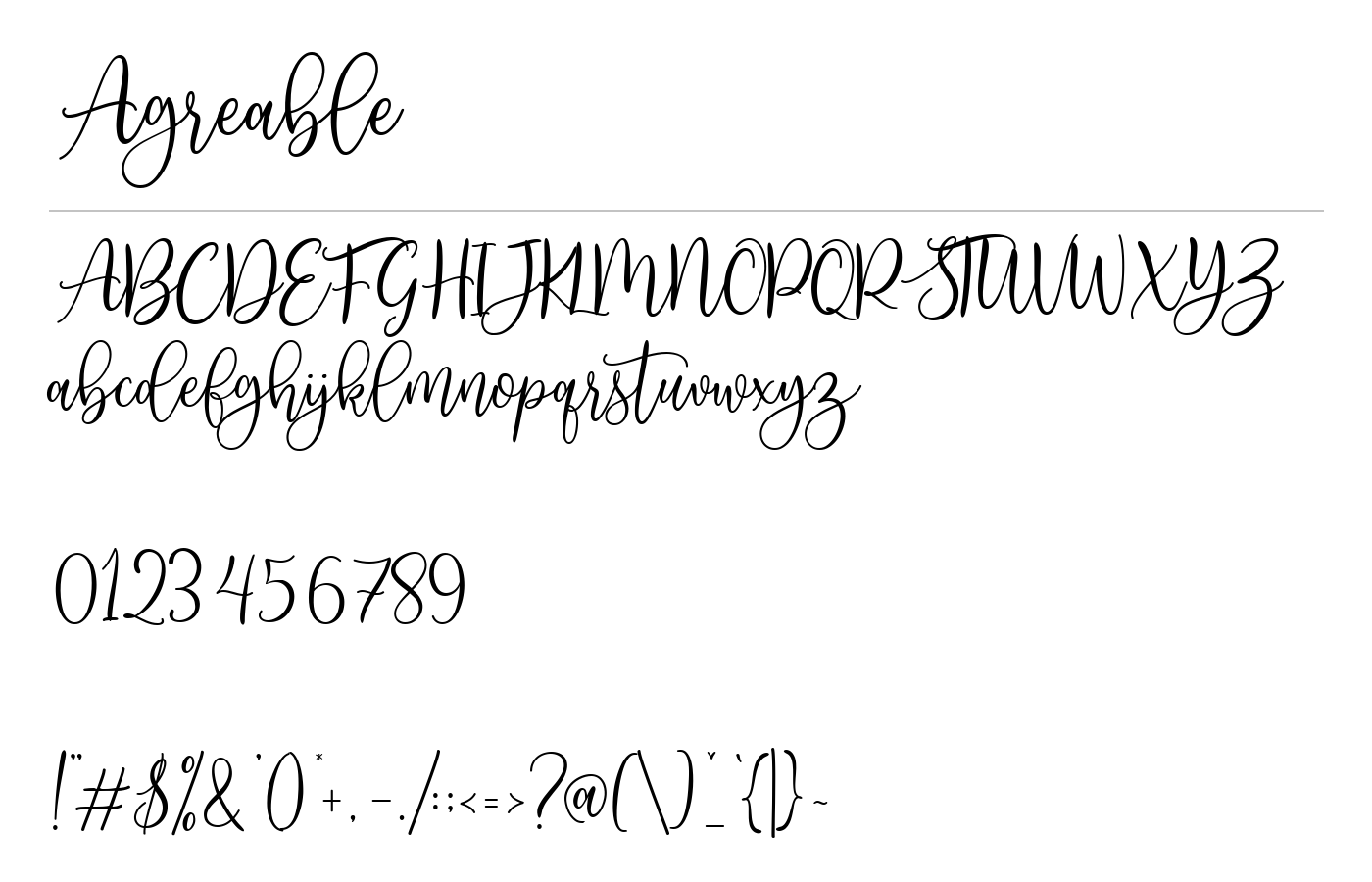
Agreable is a graceful script font featuring elegant, flowing letterforms with a delicate, hand-drawn quality. Its slender, slightly tall characters and smooth curves give it a refined yet approachable personality, making it ideal for wedding invitations, branding, and any design that seeks a sophisticated, personal touch. This font shines in headlines and decorative text where warmth and elegance are desired.
Agreable Font
| Designer | Faisal Tanjung |